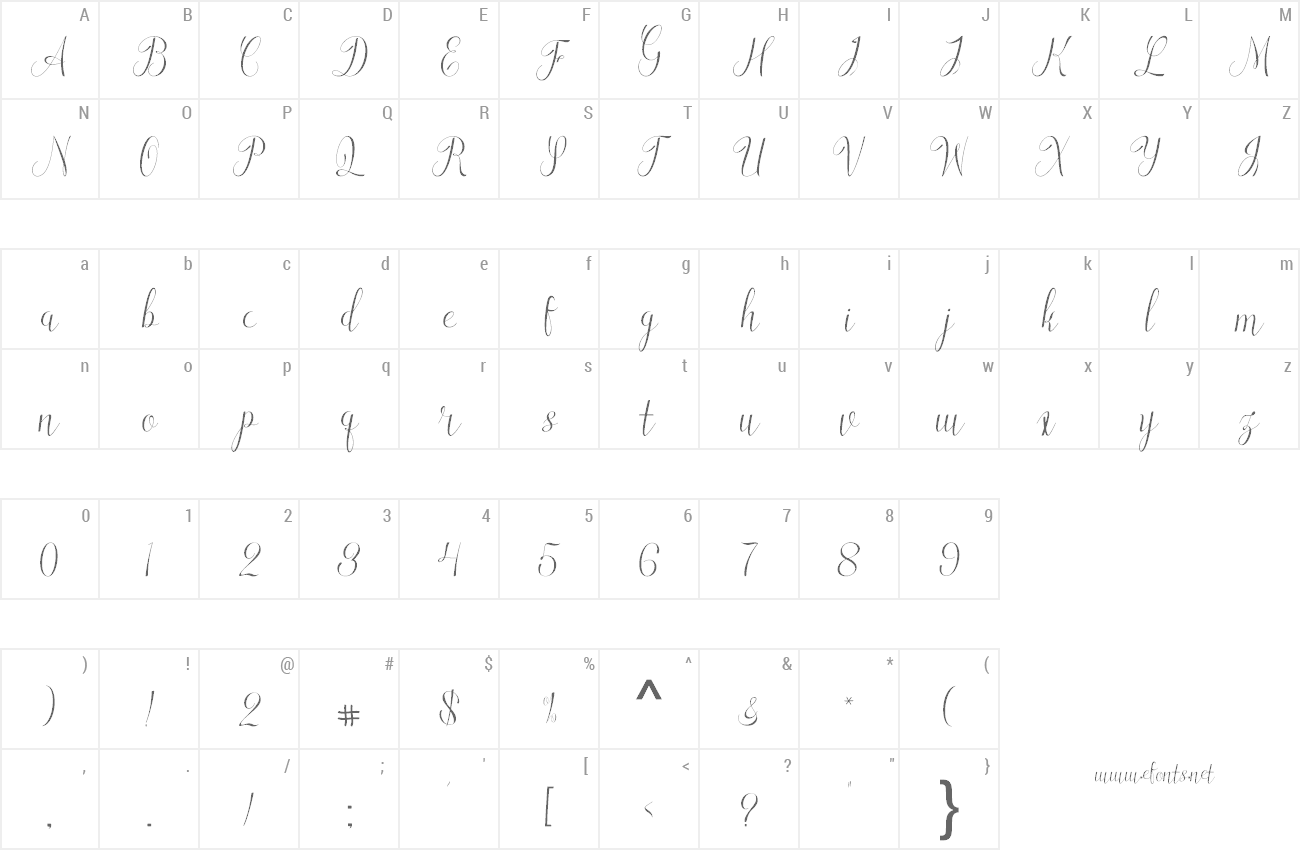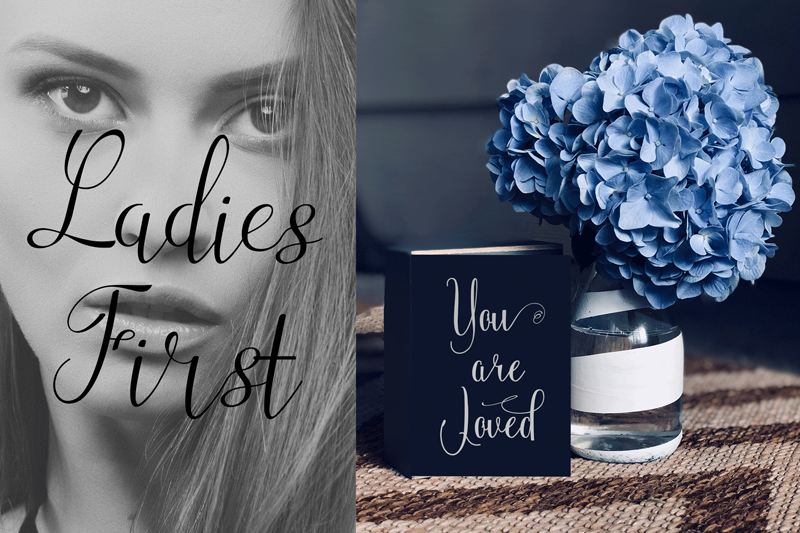
Preview and download Ladies First Font. Created by Rahmat Hidayat in Script Calligraphy styles with Free for personal use license.
Ladies First is a script font that has the characteristic handwriting, it is very suitable to make certain label and event business and you could be using for a unique piece. Visit here to get full version License : Free for personal use File Type : ttf Visit here to get all produck: https://fontbundles.net/deniz86/160629-16-incredible-handwritten-fonts Thanks Deniz86 |